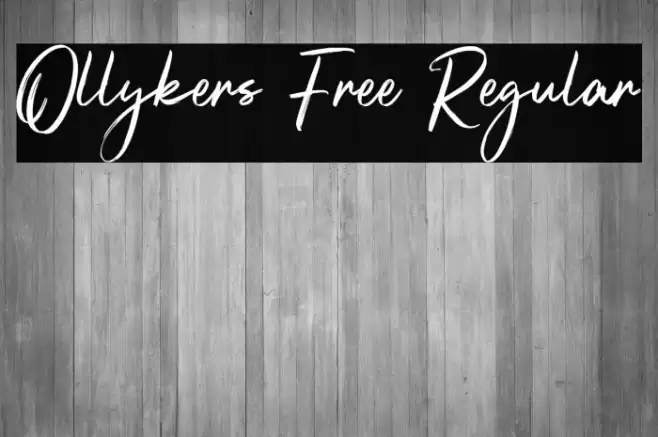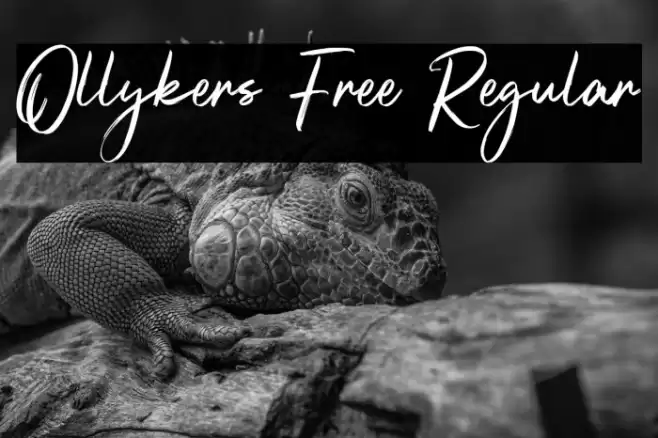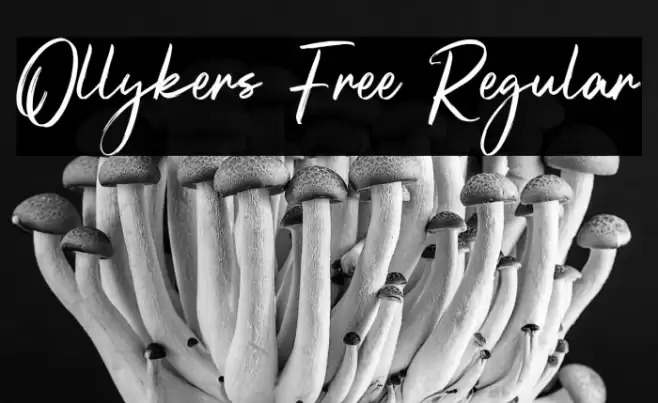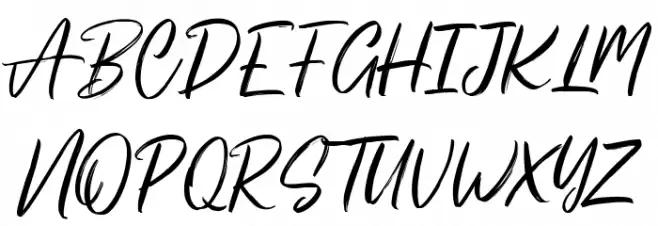
Ollykers Free Regular Font
Ollykers Free Regular Description
This font exhibits a dynamic and expressive handwritten style, characterized by fluid strokes and a natural flow. The uppercase letters are bold and slightly slanted, giving a sense of movement and energy. The lowercase letters maintain a consistent style, with elegant loops and curves that enhance its handwritten appeal. The font's overall appearance is both casual and sophisticated, making it versatile for various design applications. The characters are well-spaced, ensuring readability while maintaining the artistic flair of the script.
A dynamic and expressive handwritten script font with fluid strokes from Regular fonts.
- Proposed Projects: Ideal for wedding invitations, greeting cards, branding projects, and social media graphics.
- Use Case: Logos, Headlines, Invitations